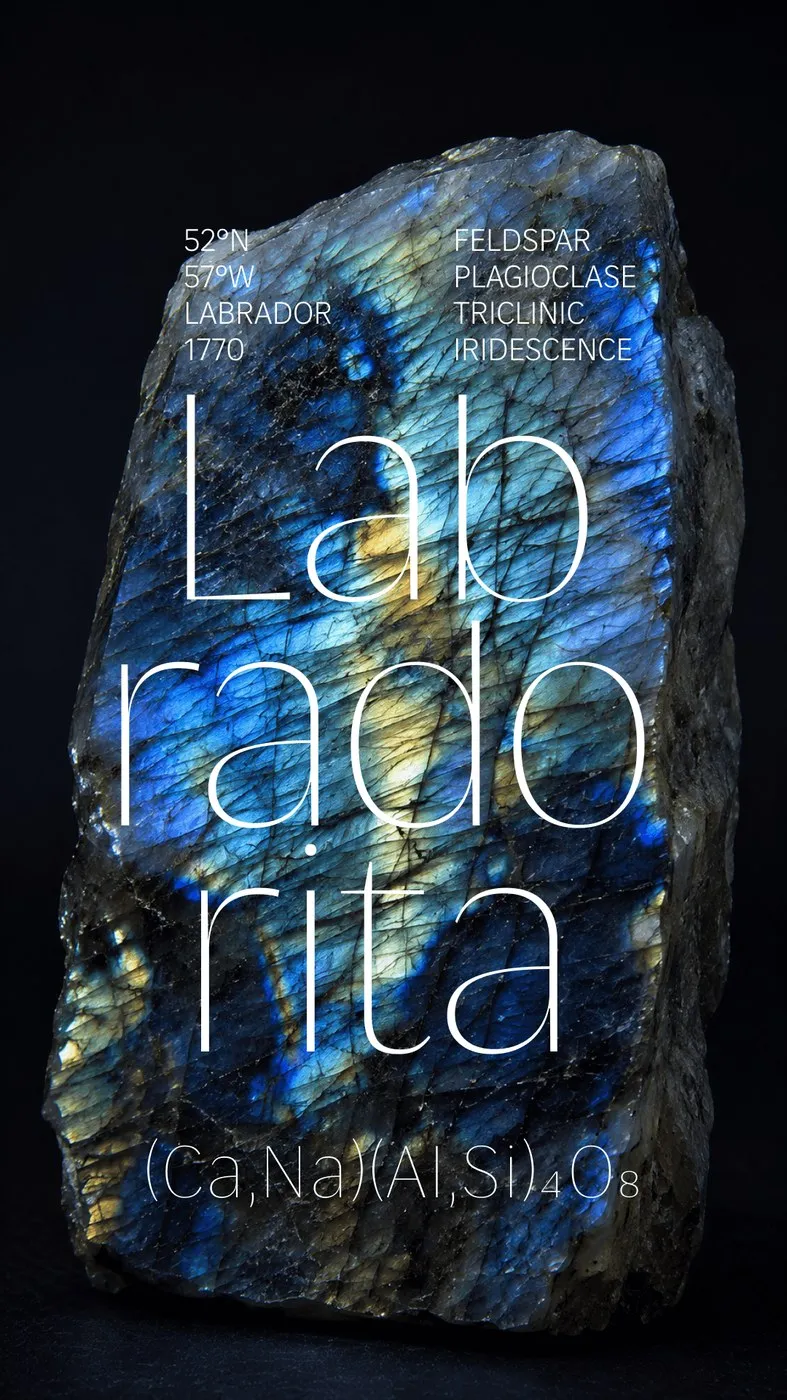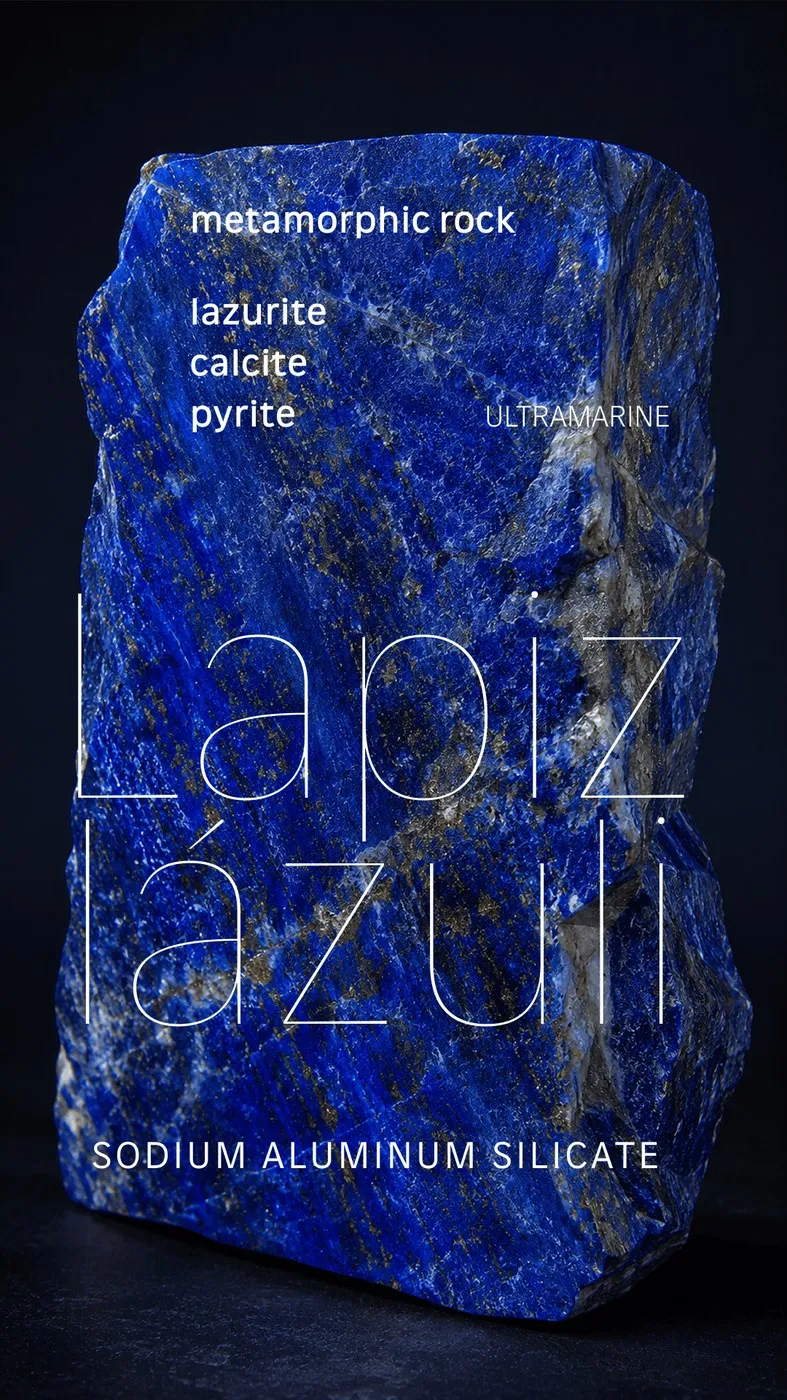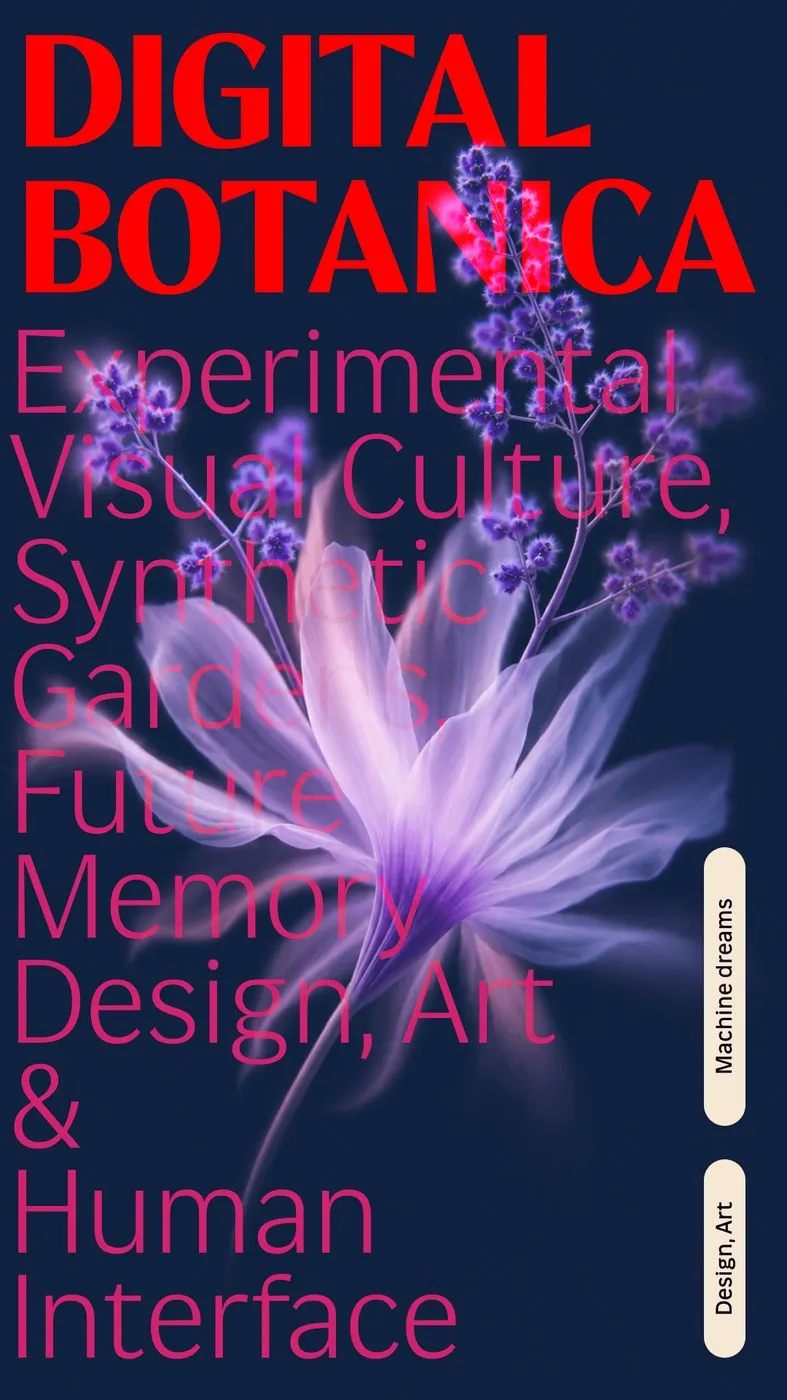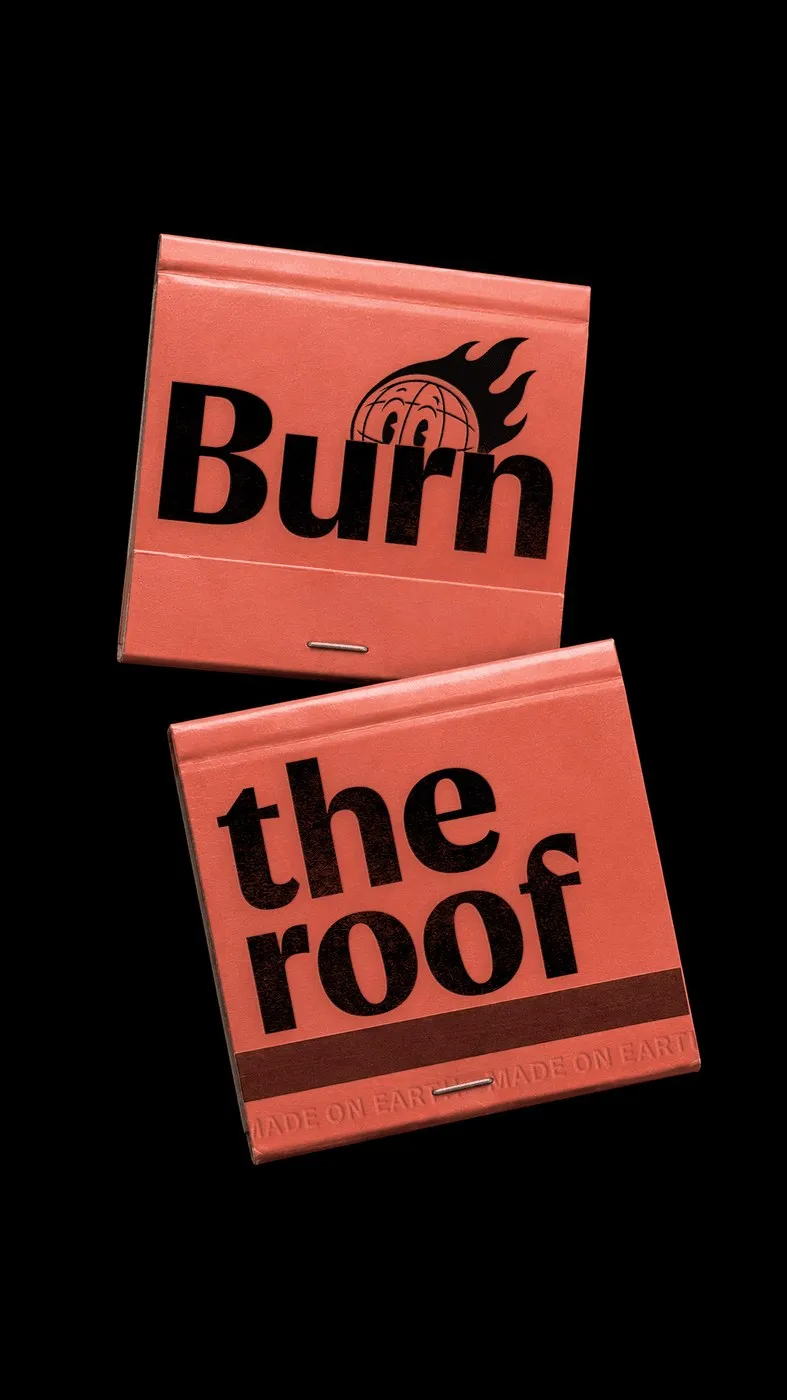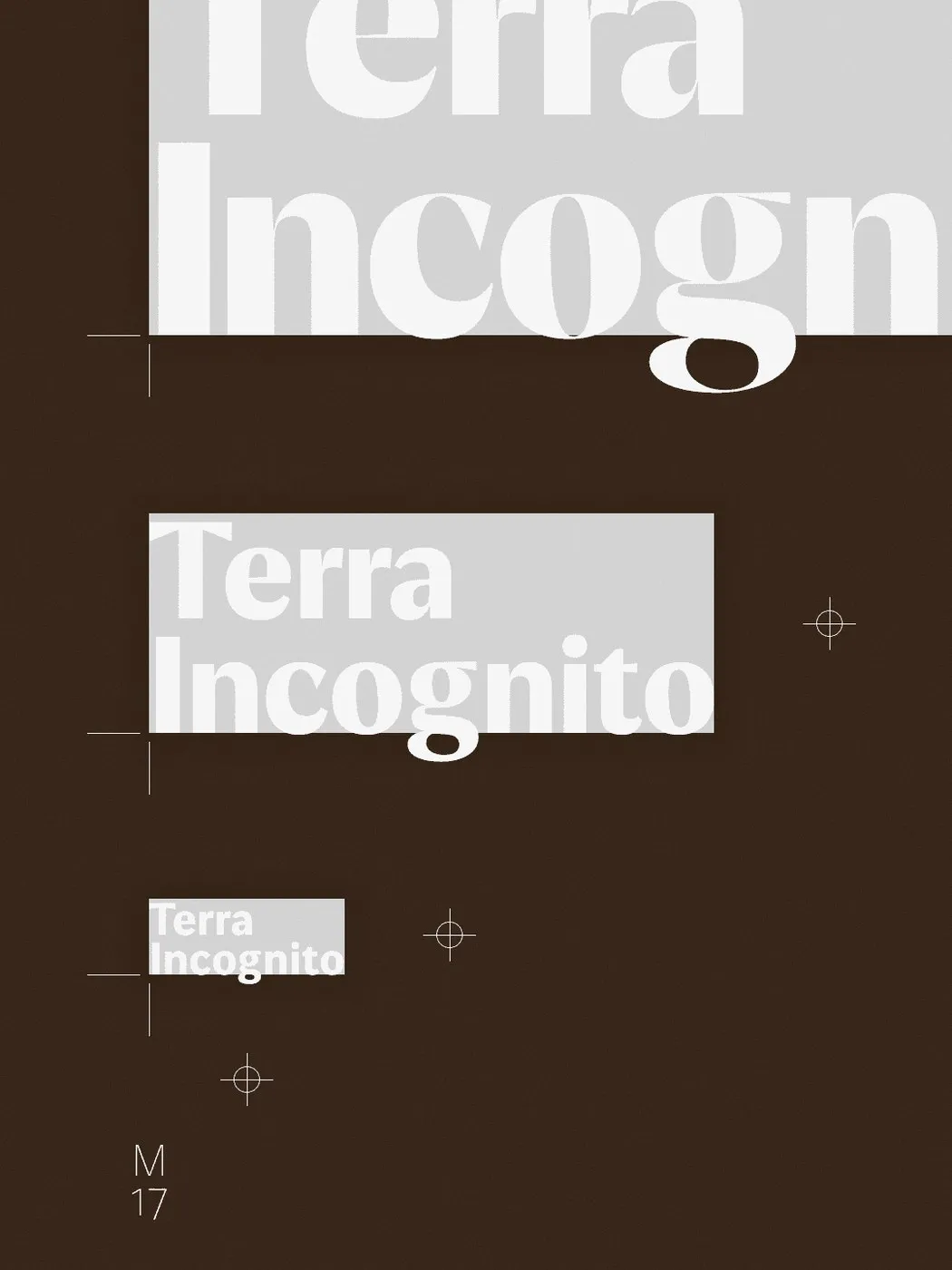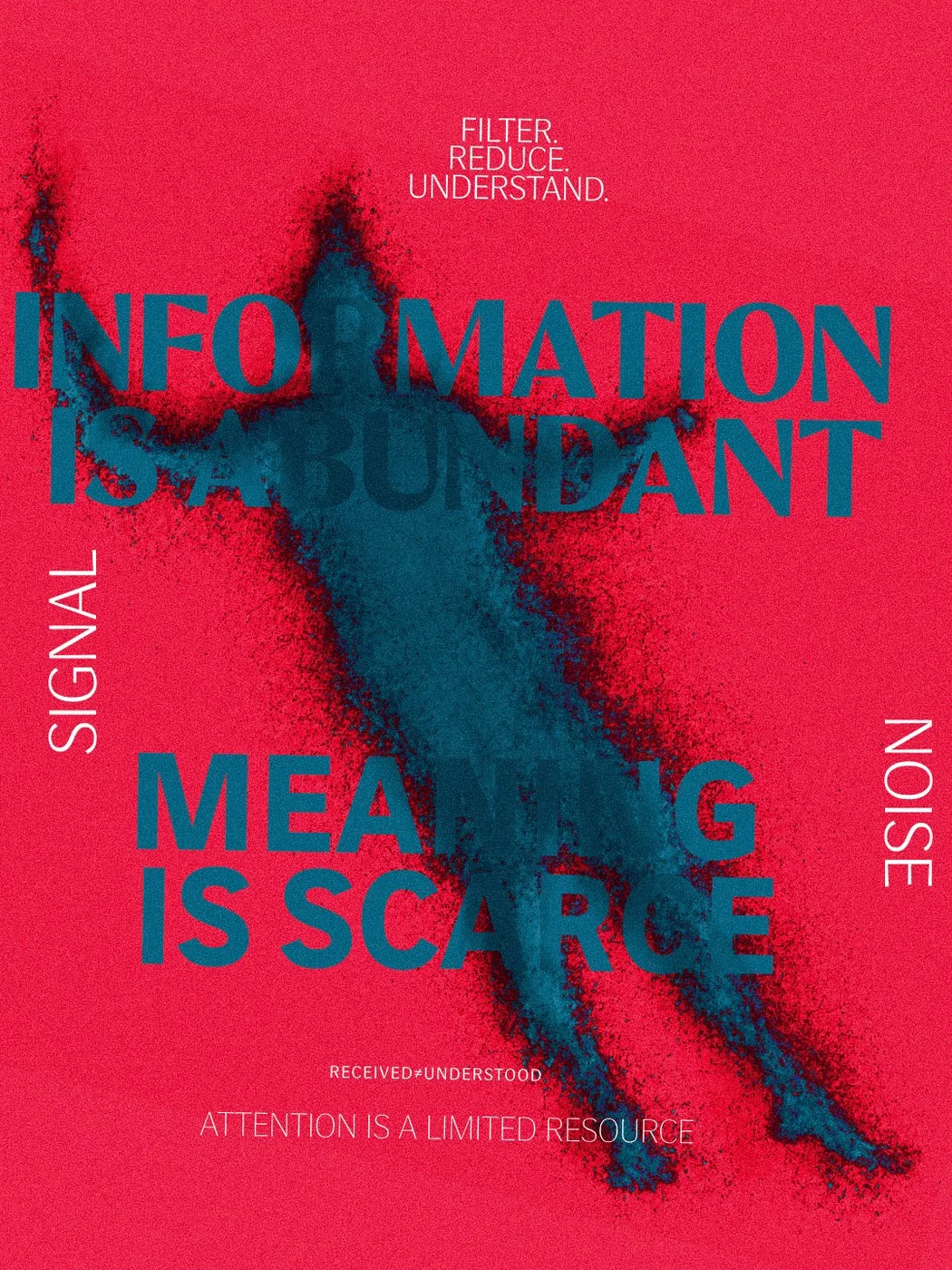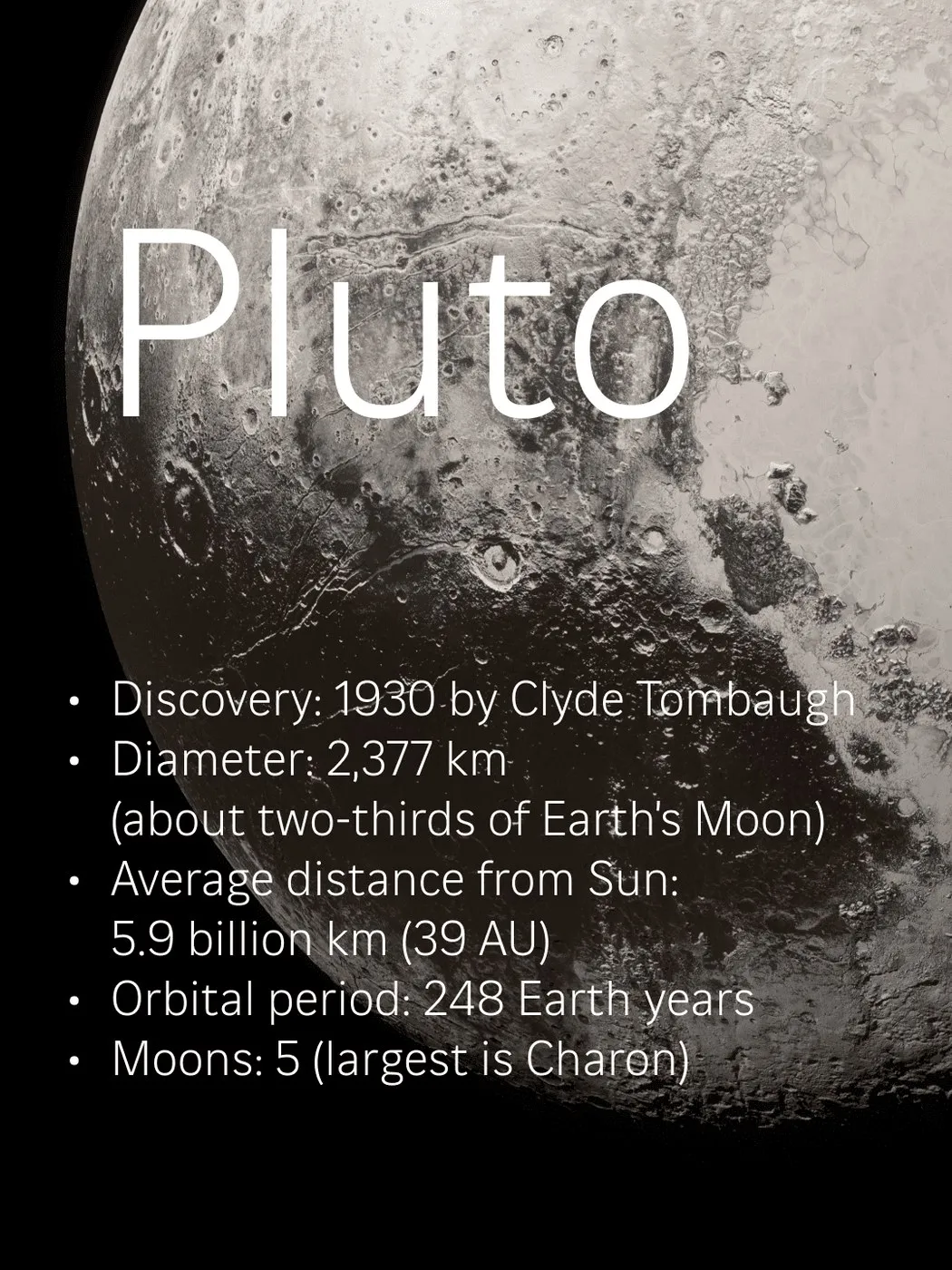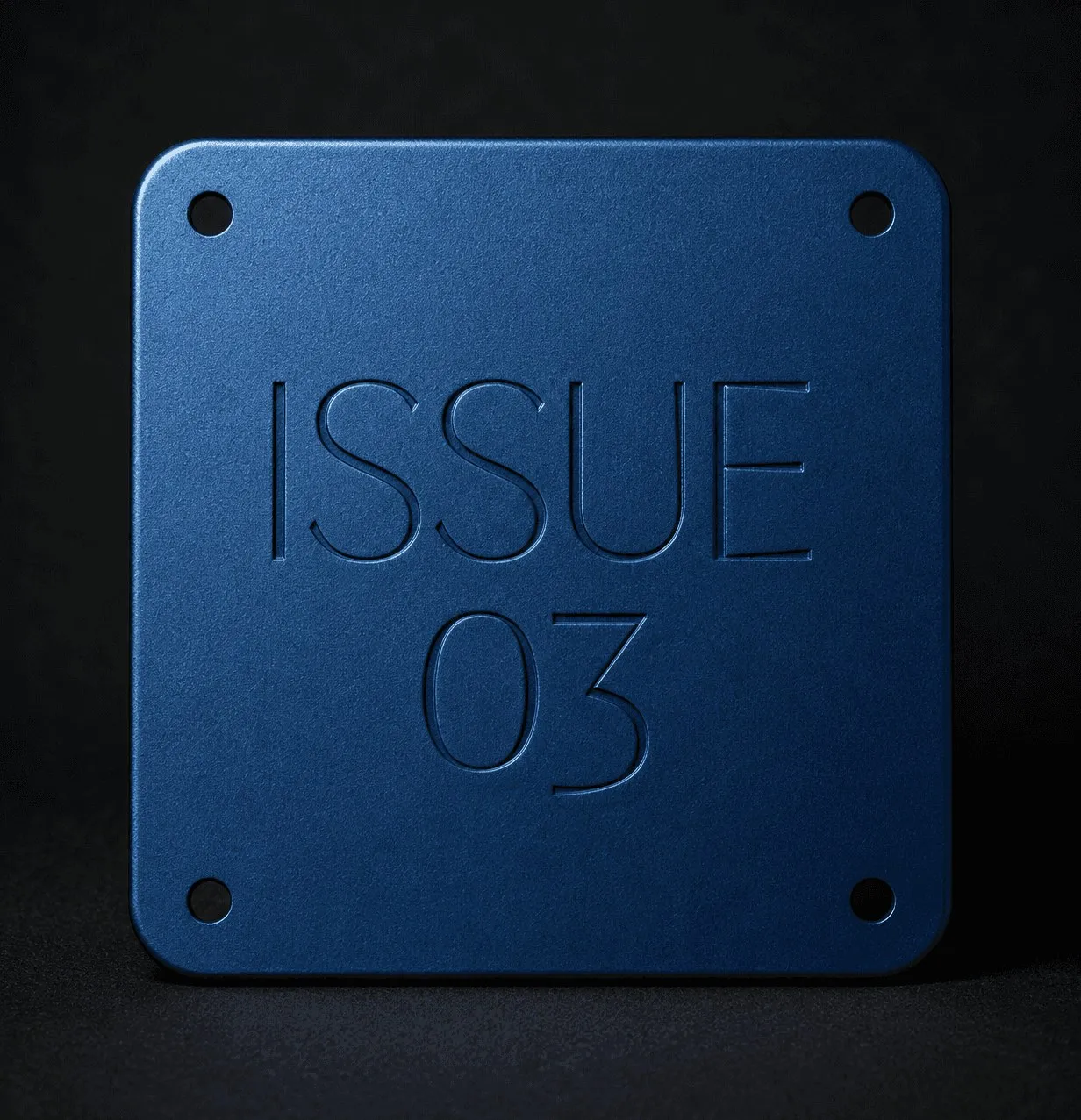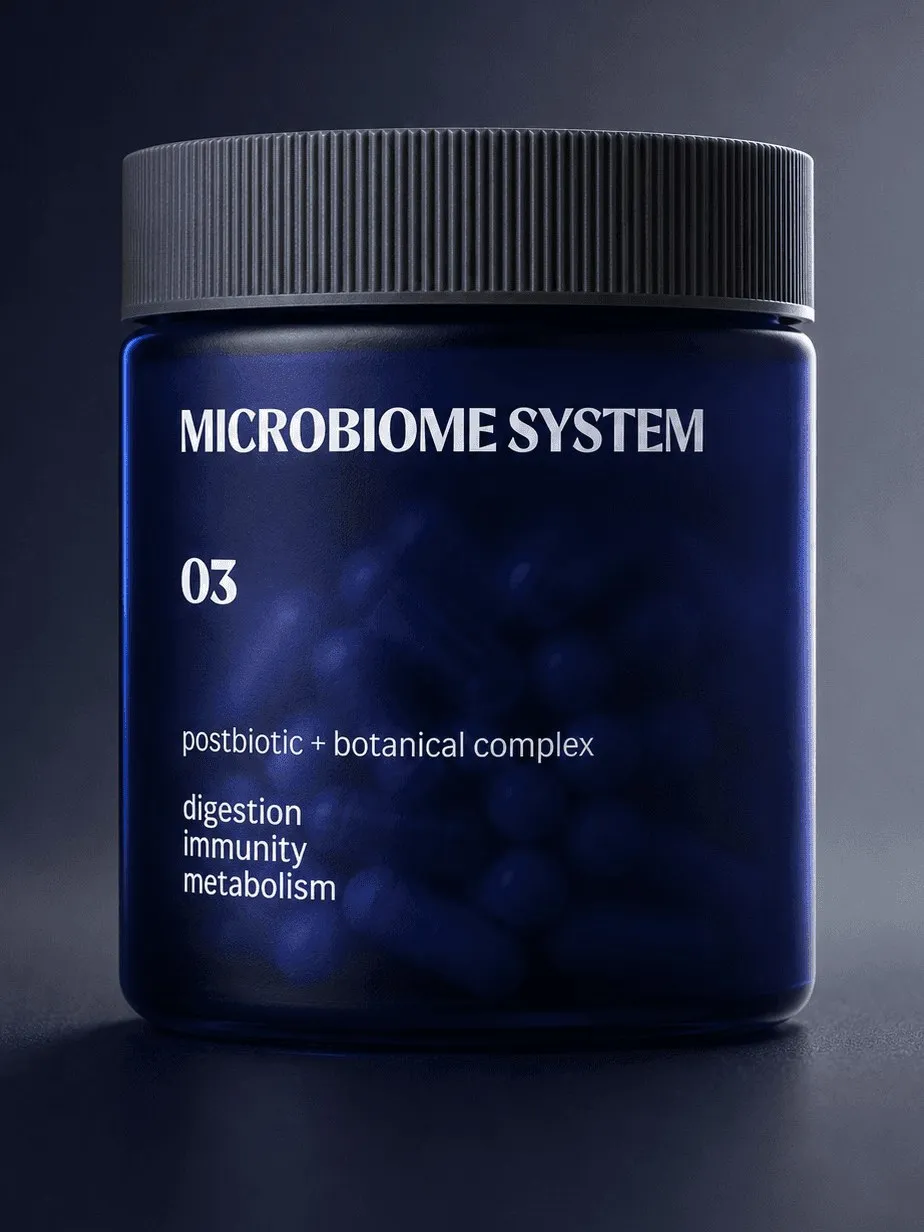
Fluxetype: A Variable Typeface System by Nikita Kanarev
Blending the crisp structure of a humanist sans with the classic proportions of a serifless roman takes some serious craft. Type designer Nikita Kanarev created Fluxetype to tackle this challenge head-on, delivering a unified visual system built for digital screens, motion graphics, and large-format print alike. With support for over 300 Latin and Cyrillic languages, the family packs 84 pre-built static styles alongside all the custom flexibility of a variable font. Instead of juggling completely different font families across brand touchpoints, this typographic powerhouse easily scales from tiny footnotes to massive exhibition headlines.
The project’s specimen posters showcase this impressive range by pairing sleek typography with heavily textured macro photography and technical callouts. In a mineral-focused series, ultra-delicate display weights overlay raw surfaces of kyanite, labradorite, and lapis lazuli, surrounded by chemical formulas and coordinates. Other prints feature optical scaling tests and registration crosshairs, showing how precise stroke adjustments preserve crisp legibility even against intricate background textures. Diagrams of planets and botanical illustrations further highlight the fascinating interplay between high-contrast letterforms and natural materials.
Beyond its display-ready looks, Fluxetype puts heavy emphasis on real-world UI design. The typeface includes three distinct x-height options: Petite (70%), Normal (74%), and Grande (78%). Switching to Grande mode automatically trims the ascenders and descenders, giving lowercase letters much greater visual presence in tight screen layouts while keeping line spacing open and readable. Sweeping all the way from zero-contrast text settings to dramatic display contrast, Fluxetype stands out as a complete, all-in-one solution to font-pairing headaches across editorial design, digital products, and physical print.
Fluxetype: Bộ font biến đổi đa năng của Nikita Kanarev cho màn hình và in ấn
Việc kết hợp giữa cấu trúc rõ ràng của một bộ chữ humanist sans với tỷ lệ cổ điển của serifless roman đòi hỏi sự tỉ mỉ rất cao về mặt tạo hình. Bộ font Fluxetype do type designer Nikita Kanarev thực hiện được thiết kế để giải quyết bài toán này, mang đến một ngôn ngữ thị giác đồng nhất cho cả màn hình kỹ thuật số, chuyển động động (motion) lẫn các ấn phẩm in ấn khổ lớn. Dự án hỗ trợ hơn 300 ngôn ngữ thuộc hệ chữ Latin và Cyrillic, cung cấp 84 kiểu static dựng sẵn cùng khả năng tùy biến linh hoạt của một variable font. Thay vì phải kết hợp nhiều họ font riêng biệt cho từng kênh thương hiệu, hệ thống typographic này đáp ứng trọn vẹn từ các dòng chú thích nhỏ (caption) cho tới tiêu đề triển lãm cỡ lớn.
Các poster specimen của dự án thể hiện rõ dải biểu đạt rộng mở khi đặt chữ viết bên cạnh hình ảnh nhiếp ảnh vĩ mô (macro) giàu chất liệu và các thông số kỹ thuật. Trong chuỗi poster về khoáng vật, các nét chữ mảnh thuộc nhóm display weight được đặt đè lên bề mặt đá kyanite, labradorite hay lapis lazuli, xung quanh là công thức hóa học và tọa độ địa lý. Một số poster khác tập trung vào bài kiểm tra tỷ lệ quang học (optical scaling) và tâm căn chỉnh (registration crosshairs), chứng minh việc điều chỉnh nét chữ giúp duy trì độ rõ ràng ngay cả trên nền họa tiết phức tạp. Sơ đồ hành tinh hay hình vẽ thực vật cũng làm nổi bật tương tác giữa bộ chữ tương phản cao với các chất liệu tự nhiên.
Bên cạnh tính thẩm mỹ dùng cho trưng bày, Fluxetype còn chú trọng đến tính ứng dụng trong thiết kế giao diện. Bộ font thiết lập 3 chế độ x-height riêng biệt: Petite (70%), Normal (74%) và Grande (78%). Ở chế độ Grande, phần ascender và descender tự động thu ngắn lại. Nhờ đó, chữ thường (lowercase) đạt được thị giác tối ưu hơn trong không gian UI chật hẹp mà vẫn giữ khoảng cách dòng thoải mái. Khả năng chuyển đổi từ độ tương phản bằng 0 (dành cho văn bản) đến độ tương phản cao (dành cho tiêu đề) giúp Fluxetype trở thành một công cụ toàn diện, giải quyết vấn đề phối font trong thiết kế xuất bản, sản phẩm số và poster thực tế.
Fluxetype: A Variable Typeface System by Nikita Kanarev